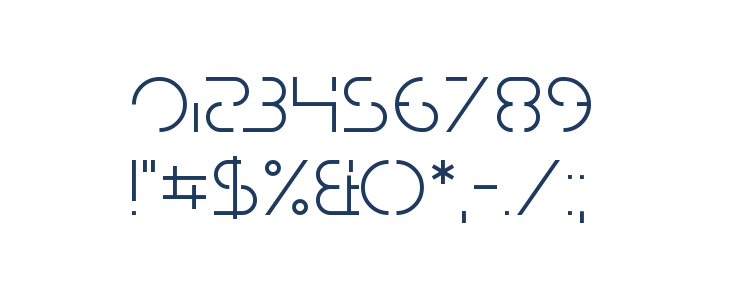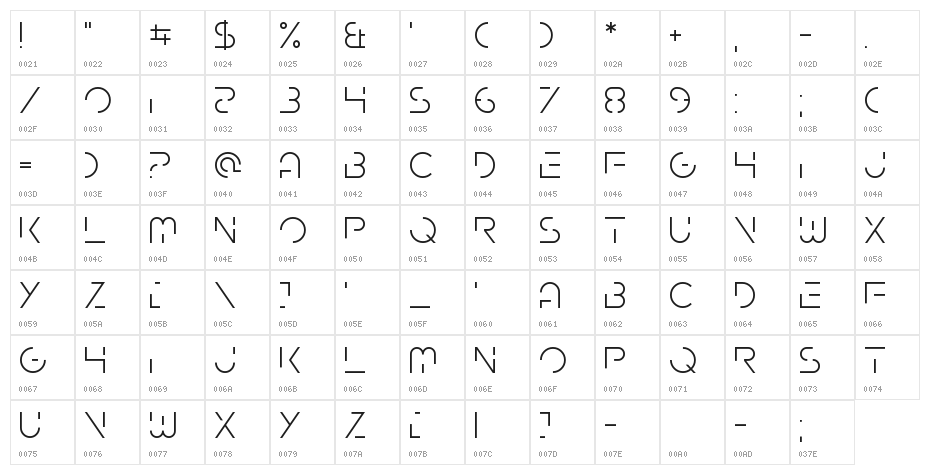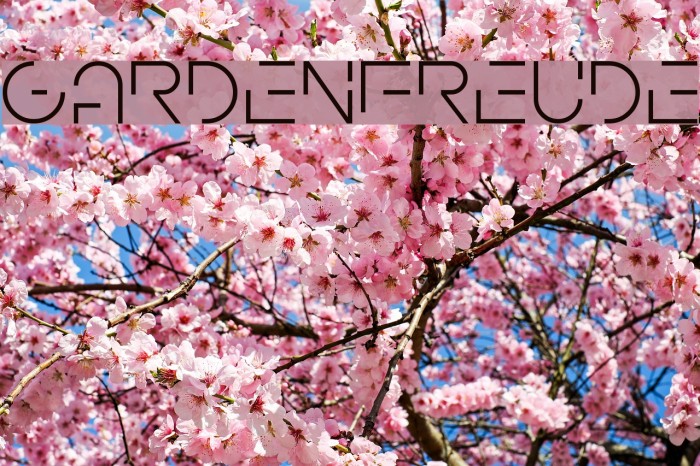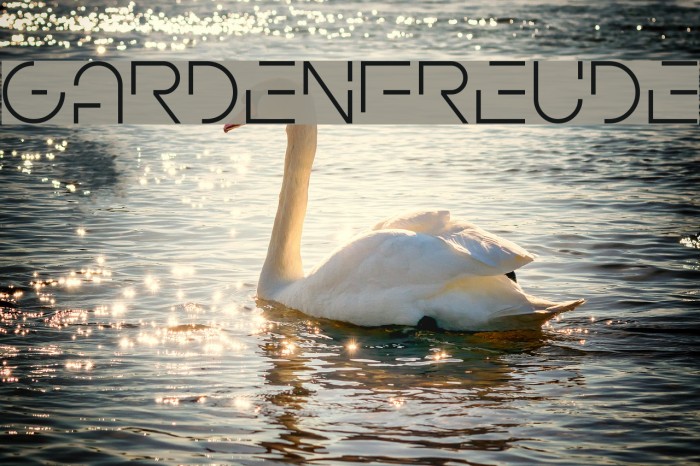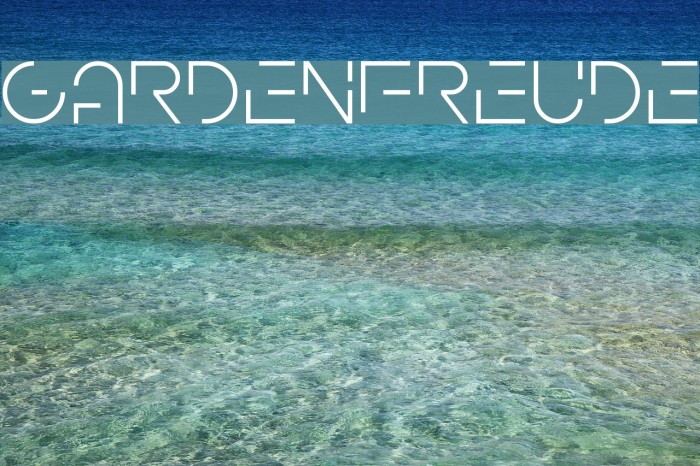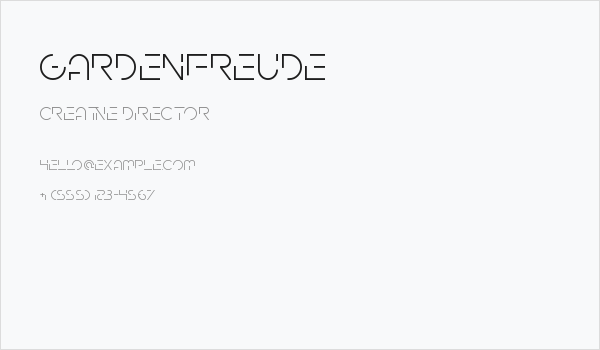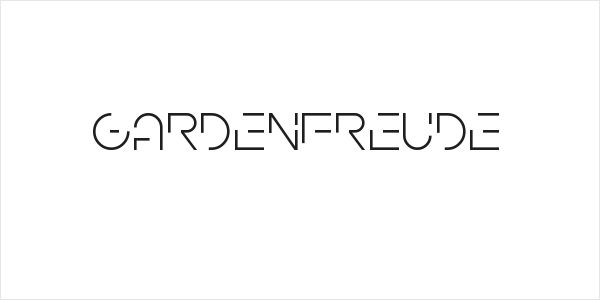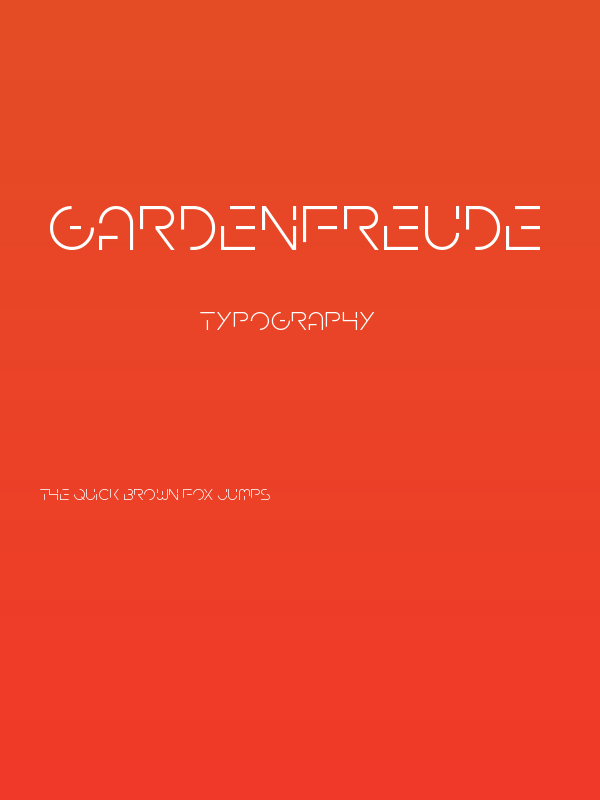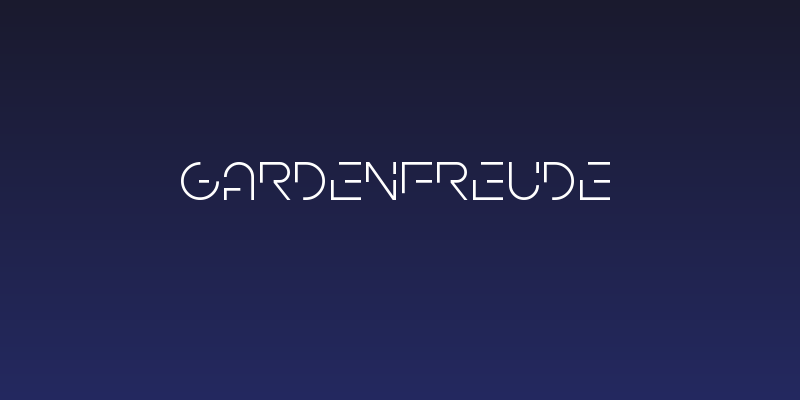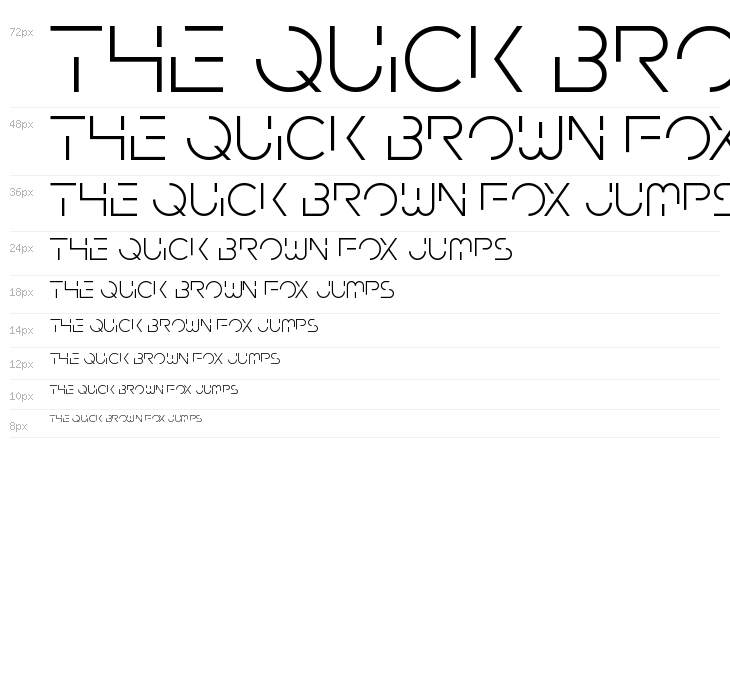
Gardenfreude Font
Gardenfreude Description
This font features a modern, geometric design with clean lines and a minimalist aesthetic. Each character is crafted with a focus on symmetry and balance, creating a cohesive and uniform appearance. The uppercase letters are bold and striking, while the lowercase letters maintain a consistent style with slightly softer edges. Numbers and special characters are designed to complement the overall look, ensuring versatility across different uses. The font's unique style makes it suitable for contemporary design projects, offering a fresh and innovative approach to typography.
GARDENFREUDE UPPERCASE
GARDENFREUDE LOWERCASE
GARDENFREUDE OTHER CHARS